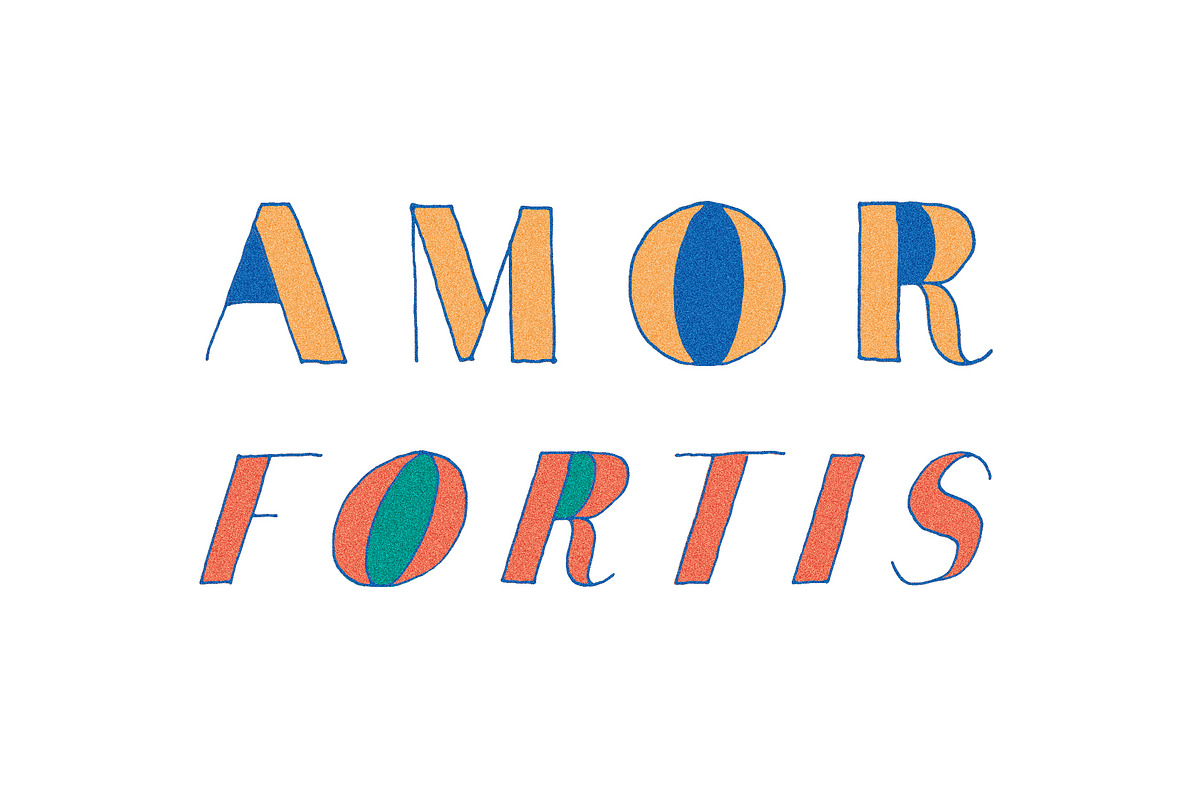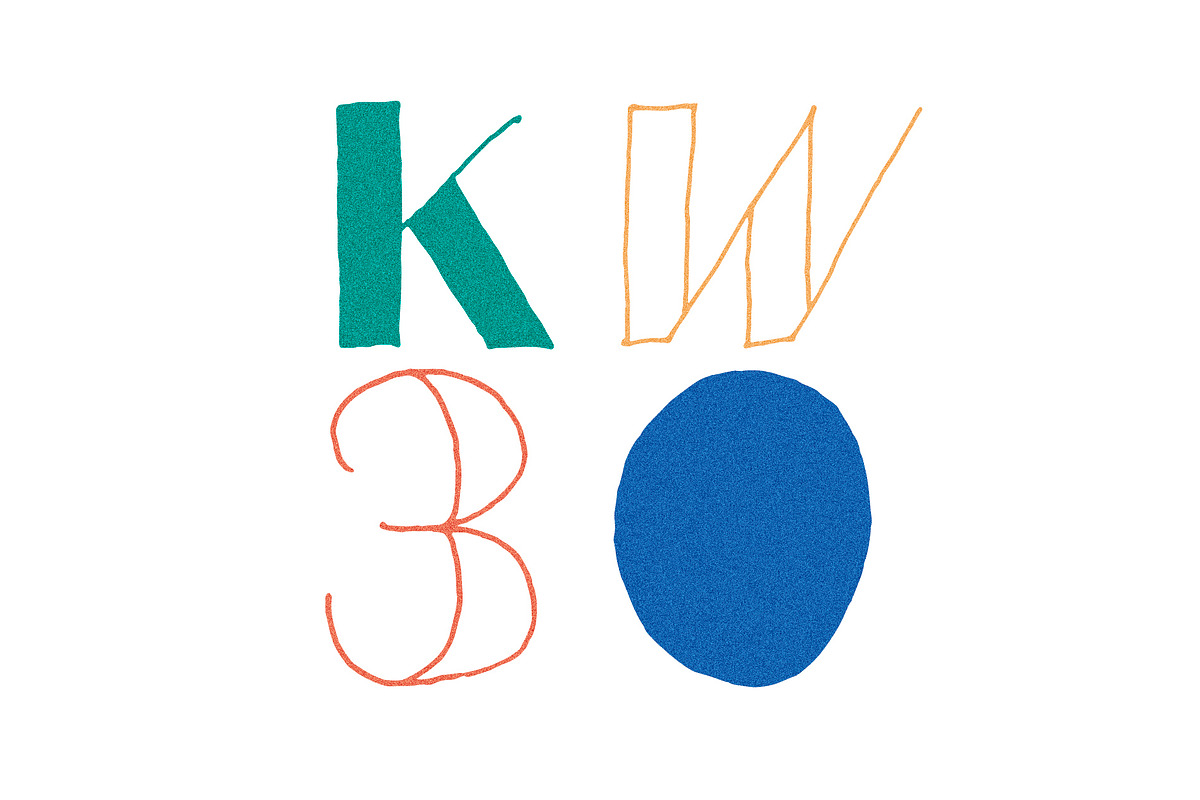
KW30 // kw-type-project
Lovely new handmade font family from the KW-type-project. Crafted with amore by gringotype based in Vienna.
Have fun creating wonderful artworks with the hand lettered KW30 font family.